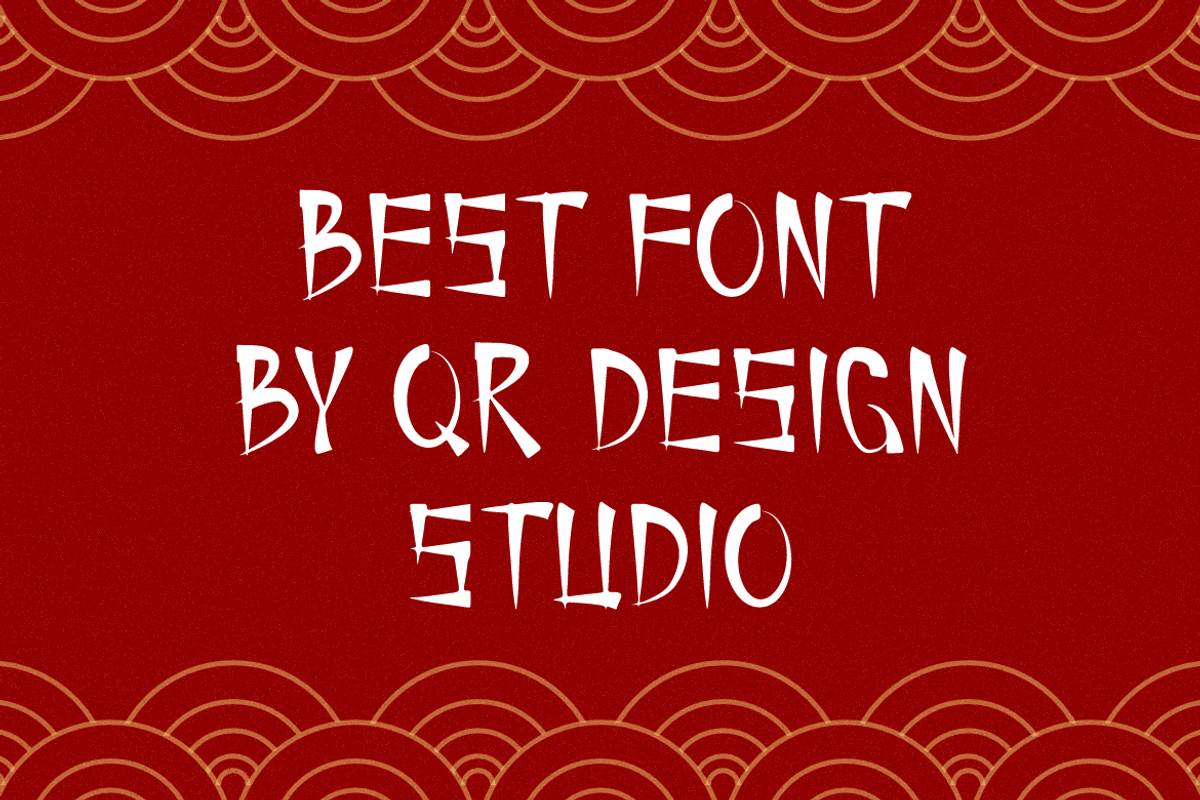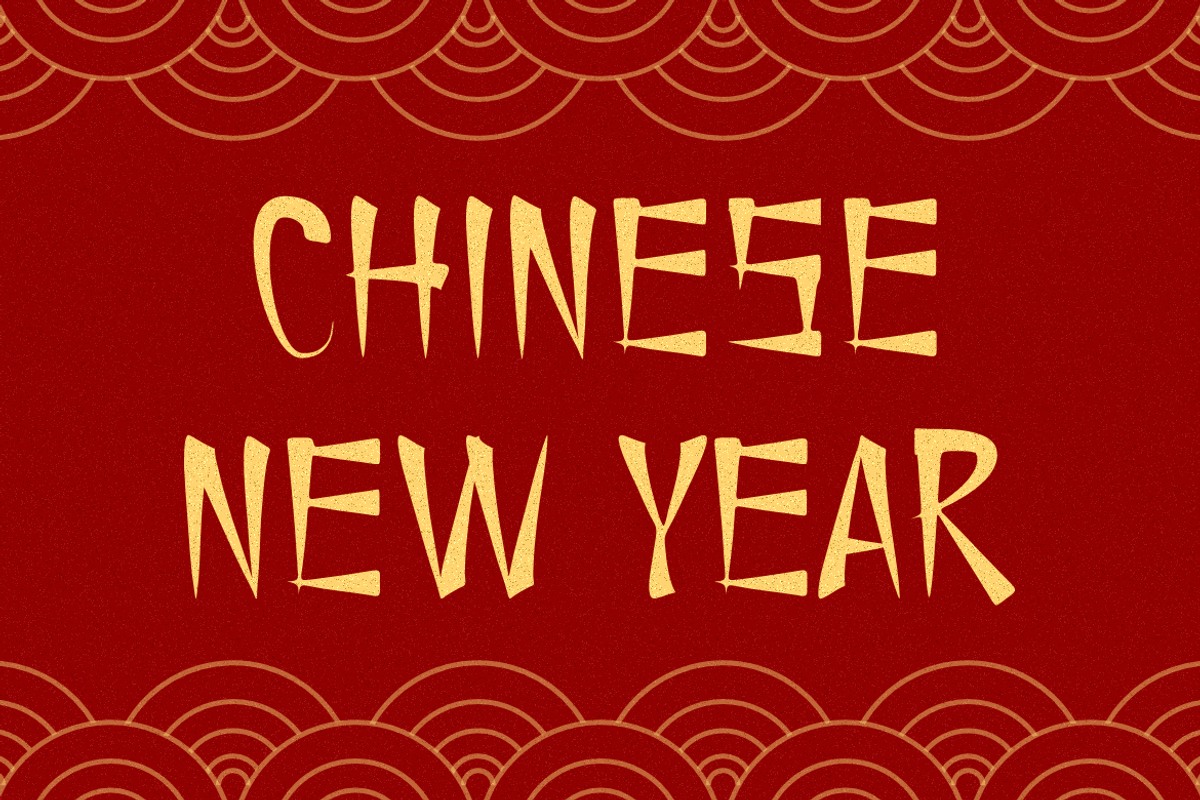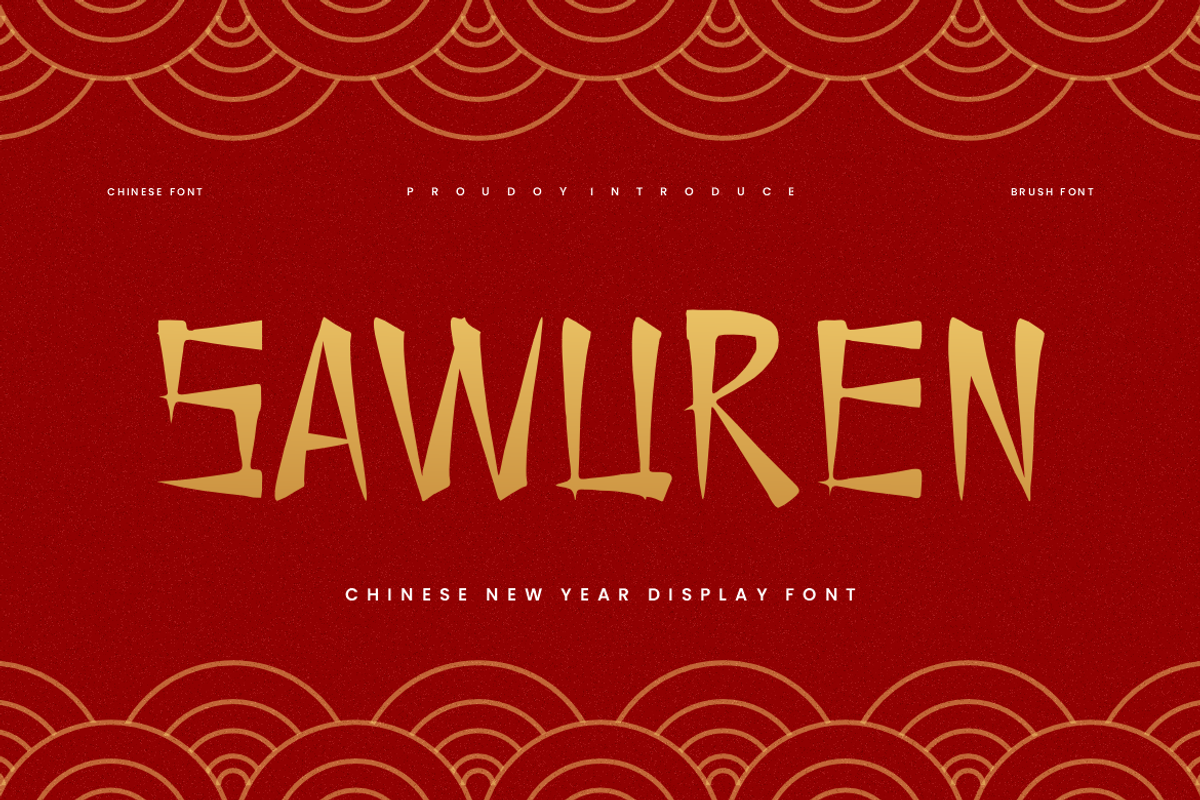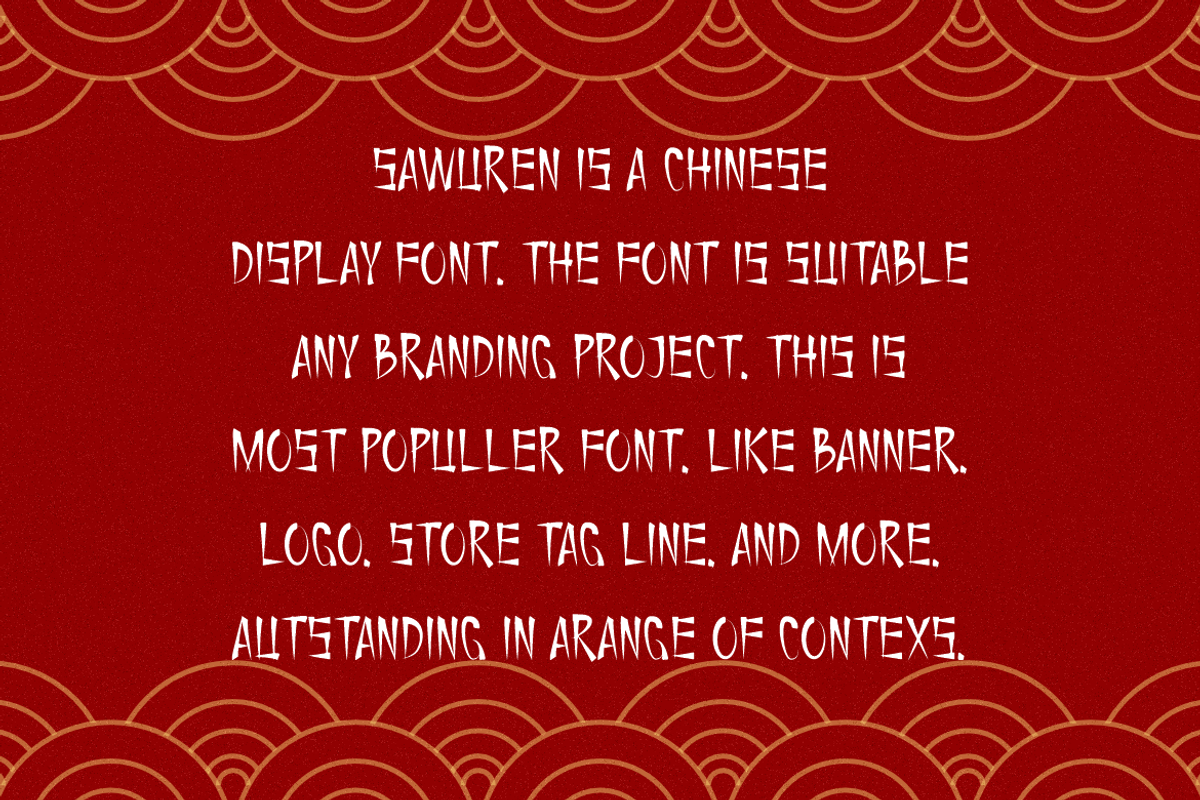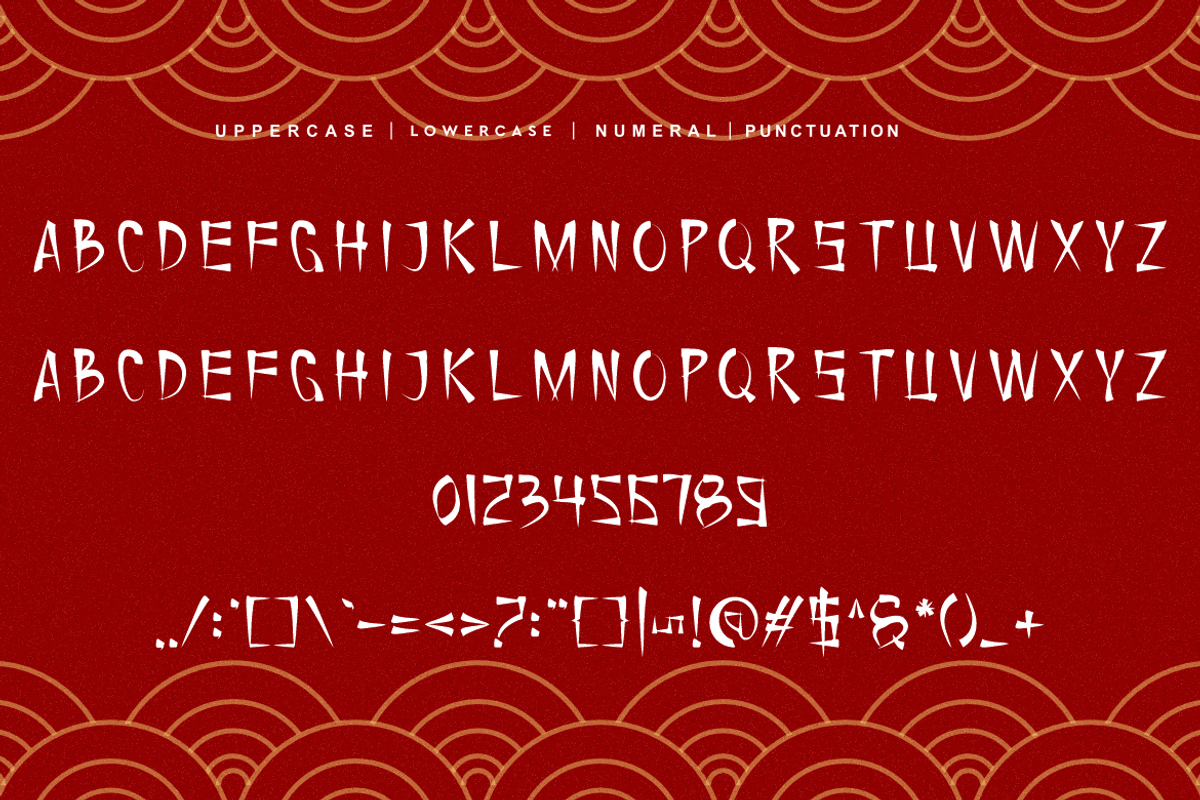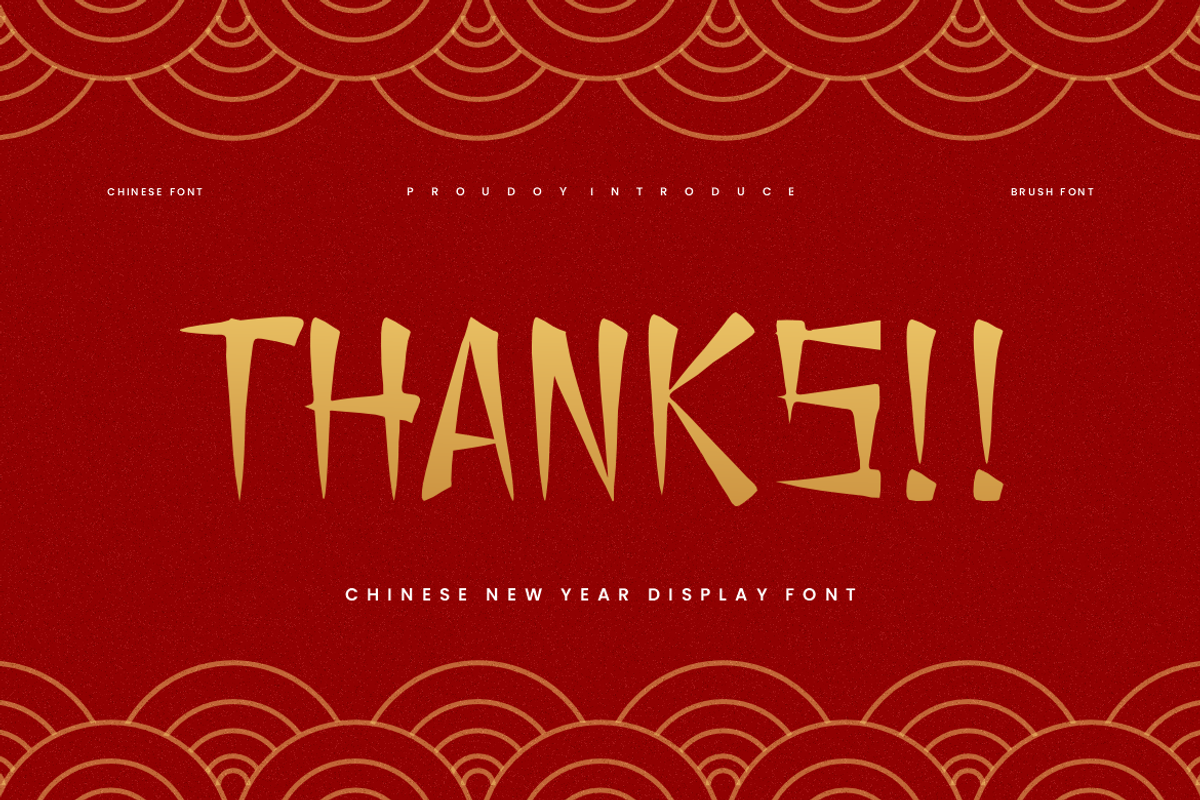
Sawuren - Chinese New Year Font
Sawuren - Chinese Font is a bold and authentic display font. The font is suitable for any branding project like poster, logo, sport, and many more. Outstanding in a wide range of contexts.